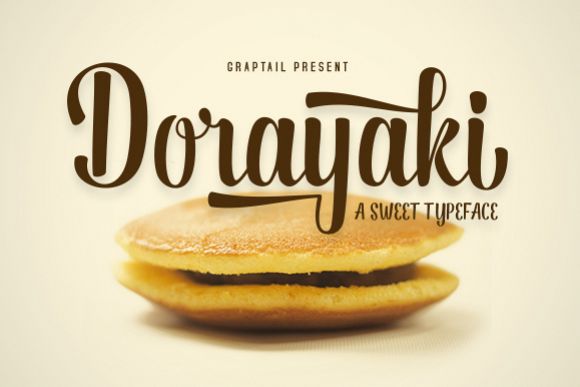
Dorayaki Script
Dorayaki Script is bold, modern, and multi-purpose typeface that combines brush lettering with natural handwriting. It was designed as a display typeface that alternative characters to improve your design. It is suitable for logo, packaging, headline, poster, t-shirt, etc. With 261 glyphs you can mix and match Dorayaki to fit your design.